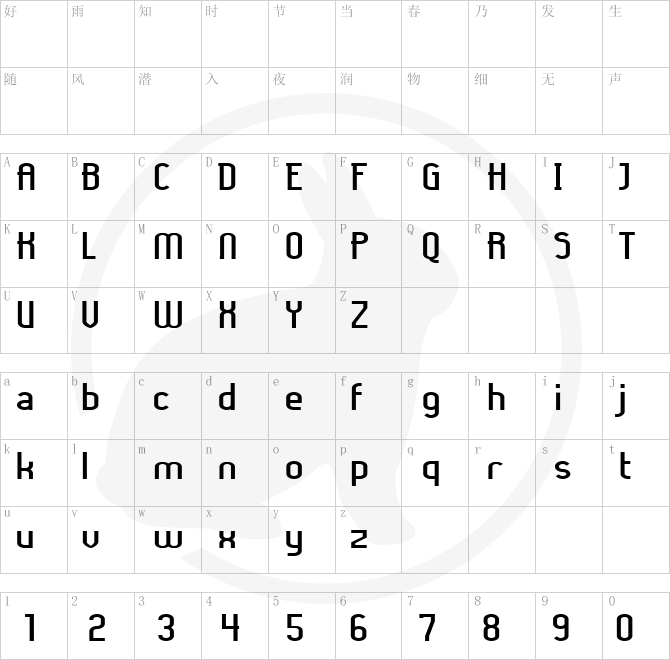
• Font Name:Lady Ice - Expanded
• Subfamily:GrahamMeade,CybaPee&ApostrophicLabs: Lady Ice - 3D: 2002
• Full Name:Lady Ice - Expanded
Lady-Ice-Expanded.ttf is a very beautiful artistic font, Lady-Ice-Expanded.ttf is widely used in the design and printing of various books and pictures,Lady-Ice-Expanded.ttf has a strong visual impact,Lady-Ice-Expanded.ttf is a commonly used font in newspapers, magazines and books, and is used in posters, e-commerce Poster design, store design, logo design, font design and other fields.Lady-Ice-Expanded.